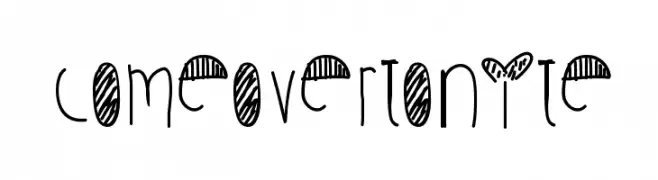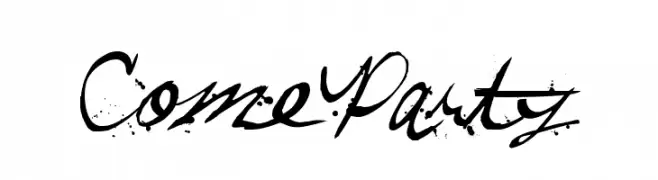
A playful, hand-drawn font with a whimsical and informal style.
A grungy, brush-style cursive font with splatter effects.
A playful handwritten font with smooth curves and a casual style.
A bold, playful handwritten font with a whimsical and dynamic style.
A bold, playful font with thick, rounded strokes and a whimsical style.
A bold, playful font with high contrast and unique negative space design.
A bold, playful font with high contrast and dynamic, tilted characters enclosed in squares.
A playful, hand-drawn font with bold, rounded letterforms and a whimsical style.